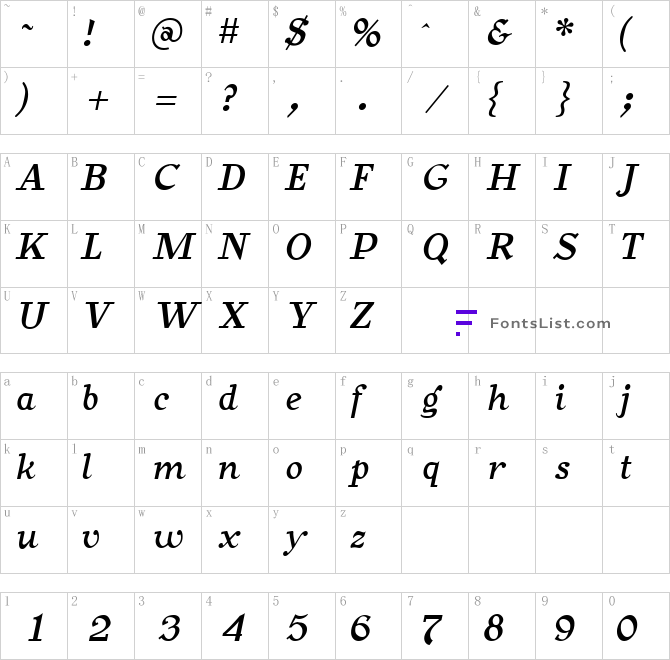
- Font Name:BearButteT
- Subfamily:BoldItalic
- Full Name:BearButteT BoldItalic
BearButteT-BoldItalic.ttf is a very beautiful artistic font, BearButteT-BoldItalic.ttf is widely used in the design and printing of various books and pictures,BearButteT-BoldItalic.ttf has a strong visual impact,BearButteT-BoldItalic.ttf is a commonly used font in newspapers, magazines and books, and is used in posters, e-commerce Poster design, store design, logo design, font design and other fields.BearButteT-BoldItalic.